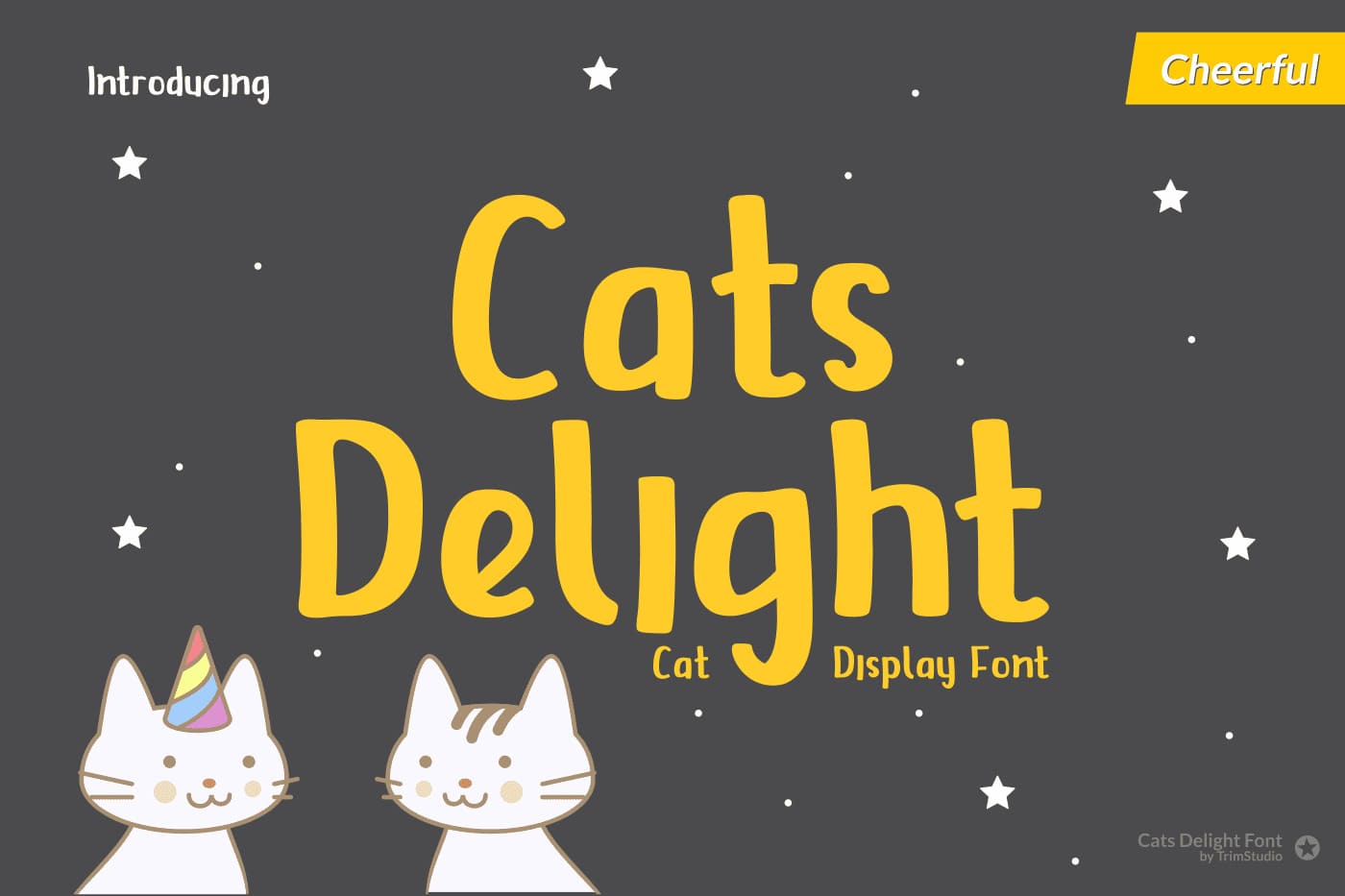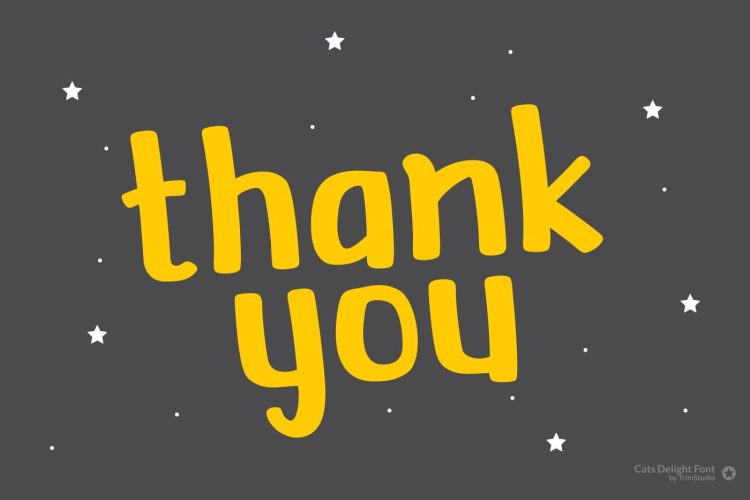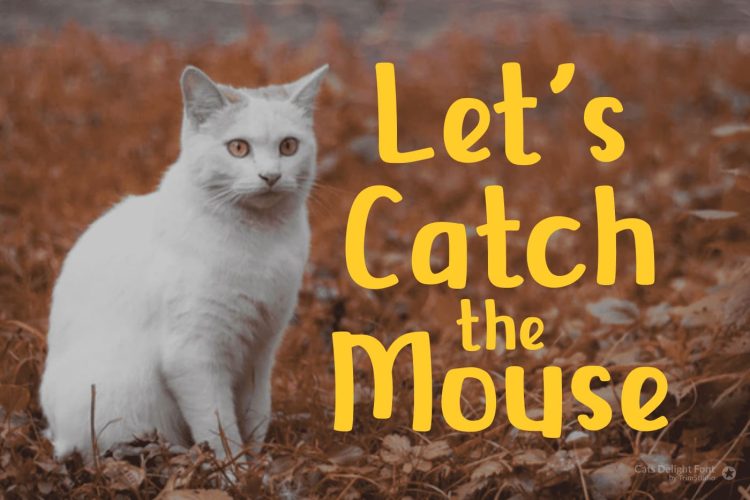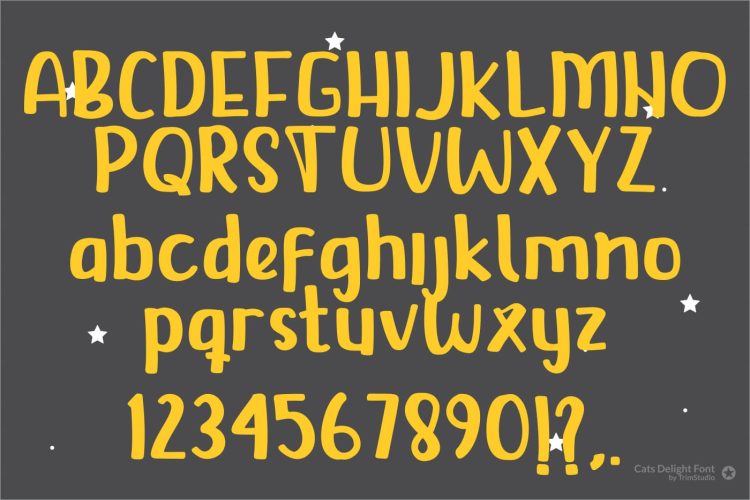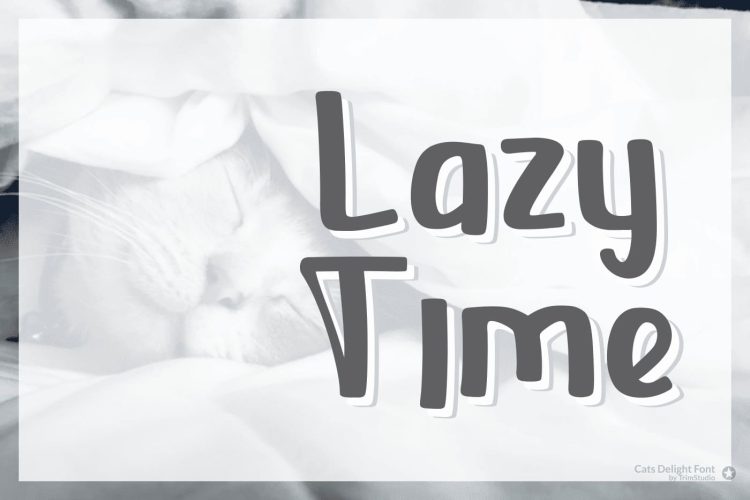
Inspired by kitties, Cats Delight is cute and cheerful display font that will give a touch of happiness and fantasy to your designs!
Cats Delight – Cute and Cheerful Display Font